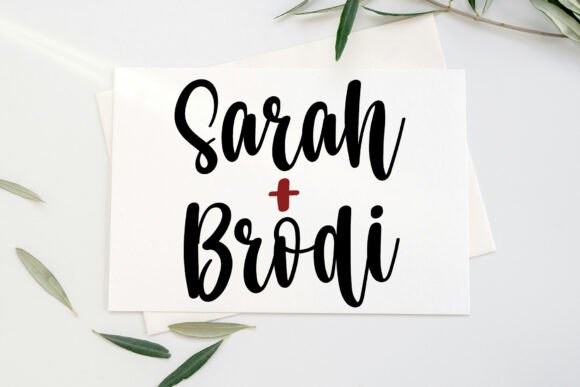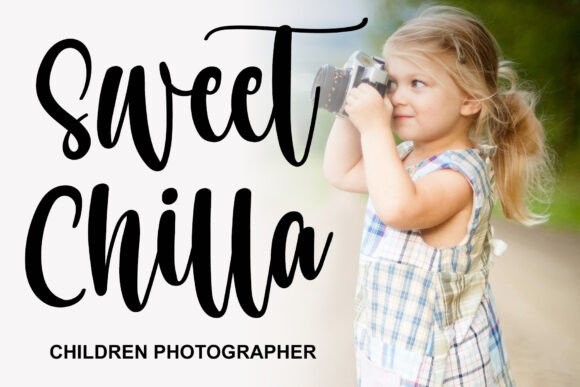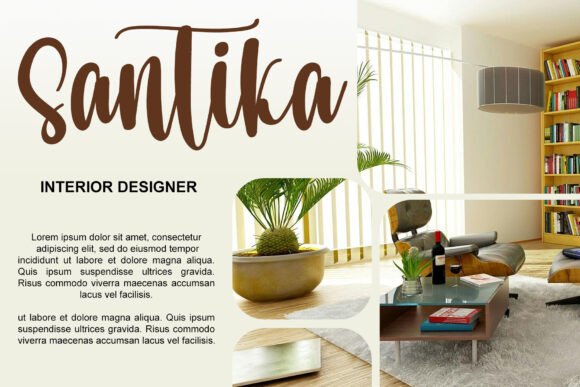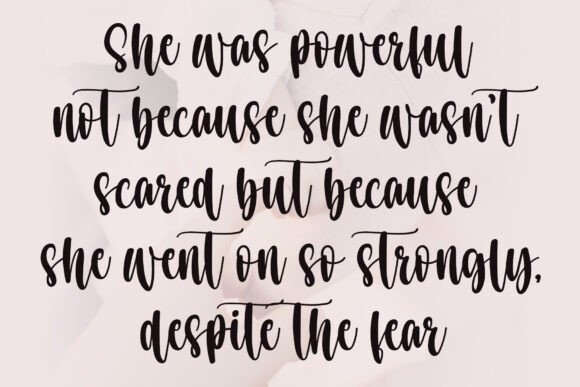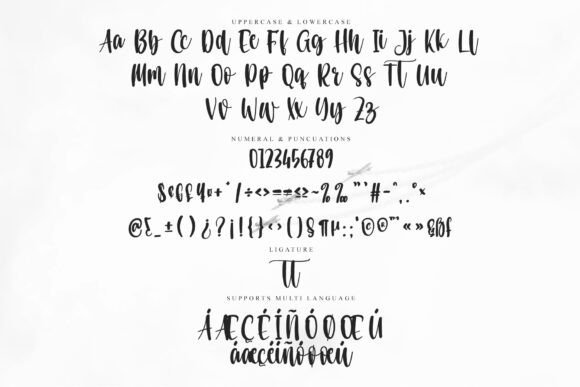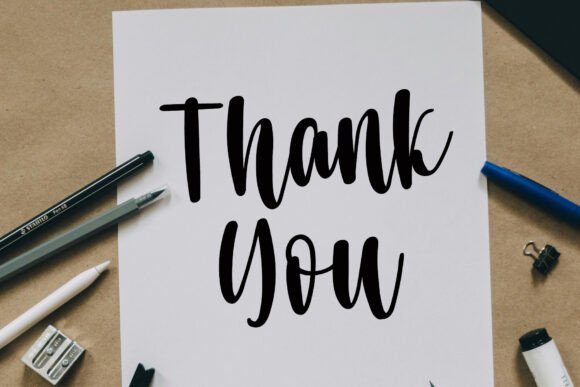
Deck the Halls with Typography: Introducing Back Snowty Font
As the snowflakes start to fall and the festive lights twinkle, many of us find ourselves lost in the magic of the holiday season. For designers, this time of year is a chance to tap into our creative side and bring joy to others through our work. I still remember the excitement of designing holiday cards for my family and friends, carefully choosing the perfect font to match the cheer and warmth of the season.
That’s where the Back Snowty Font comes in – a festive and merry typeface that captures the essence of the holiday spirit. This delightful font is perfect for adding a touch of whimsy to your designs, from greeting cards and gift tags to holiday-themed projects. With its decorative elements and playful flair, the Back Snowty Font brings a sense of enchantment to your words, making it a valuable addition to any designer’s toolkit.
Back Snowty Font Key Features
- Font Family: Back Snowty Font is a unique, handwritten font family designed to evoke a sense of nostalgia and winter wonder.
- Character Set: The font includes a wide range of characters, including uppercase and lowercase letters, numerals, punctuation marks, and special characters.
- Unique Characteristics: The font features a distinctive, hand-drawn style with subtle imperfections, giving it a charming and authentic feel.
Back Snowty Font Review
I was excited to dive into the Back Snowty Font, but my experience was a mixed bag. Here’s what I thought:
- The font’s unique, handwritten feel is certainly eye-catching and perfect for adding a touch of whimsy to your designs.
- It’s incredibly versatile, suitable for a wide range of applications, from advertising to editorial content.
- The font’s ligatures are well-designed, making it a joy to use for longer passages of text.
- The font’s readability can be a concern in certain contexts, particularly for body text or larger blocks of text.
- The font’s uppercase letters can appear slightly awkward, which may detract from the overall aesthetic.
The Back Snowty Font is a solid choice for designers looking to add a bit of personality to their projects. While it’s not without its limitations, it’s a versatile and visually appealing font that can elevate your designs. With a bit of caution and creative application, this font can be a valuable addition to your toolkit.
The Back Snowty Font is ideal for creating a rustic, winter-themed design. Use it for:
- Winter holiday cards and invitations
- Outdoor apparel and accessories
- Winter-themed social media graphics
Alternatives to Back Snowty Font for Designers
Great Vibes Font is a modern, elegant script font that works well for branding and advertising materials. It’s perfect for creating a friendly and approachable atmosphere. When to use: For creating invitations, greeting cards, or any other materials that require a touch of elegance.
Comparison: Great Vibes Font has a more refined and sophisticated look compared to Back Snowty Font, which has a more playful and cursive feel. Great Vibes Font is ideal for formal occasions, while Back Snowty Font is better suited for casual and creative projects.
Dancing Script Font is a beautiful, handwritten font that adds a touch of whimsy to any design. It’s perfect for creating eye-catching headlines and titles. When to use: For creating posters, social media graphics, or any other materials that require a bold and attention-grabbing font.